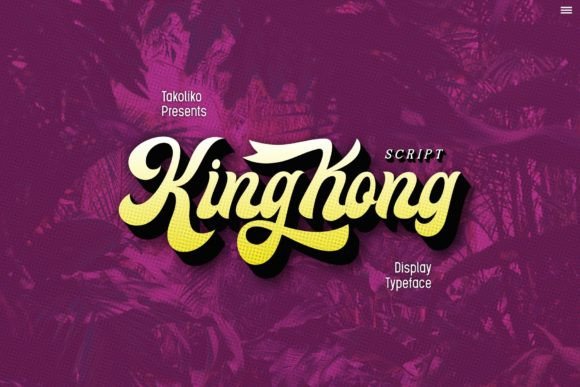
Step into a world of captivating storytelling with KingKong, the script font that breathes life into your creative visions. As a retro and groovy script display font, KingKong's spirited personality shines through in every graceful curve and playful stroke. It's a font that speaks to the heart, evoking a sense of nostalgia with its vintage charm and a touch of eccentricity that sets it apart.
KingKong is not just a font; it's an experience. It's designed to capture the essence of comic scripts, bringing your characters and narratives to life with a unique flair. Its whimsical nature invites you to let your creativity run wild, whether you're crafting posters, branding materials, or social media graphics. Its bold presence demands attention, making it perfect for headlines and titles that demand to be noticed.
With KingKong, you'll find endless possibilities to transform your designs into captivating visual masterpieces. Imagine the delight of your readers as they embark on a typographic journey through your words, guided by the expressive strokes of KingKong. Its inherent charm adds a touch of warmth and personality to any project, creating a lasting impression that resonates with your audience.
So why settle for ordinary when you can embrace the extraordinary? Let KingKong be your muse, guiding you into a realm of creativity where your imagination knows no bounds. Its playful spirit will ignite your passion, propelling your designs to new heights of brilliance. Unleash the power of KingKong today and embark on a typographic adventure that will leave your audience spellbound.